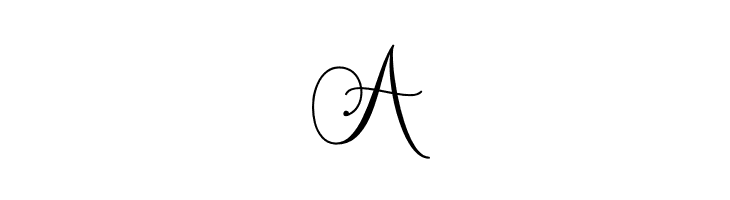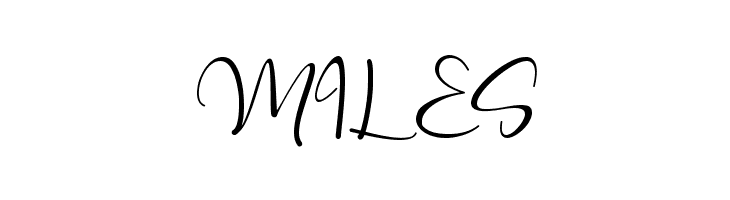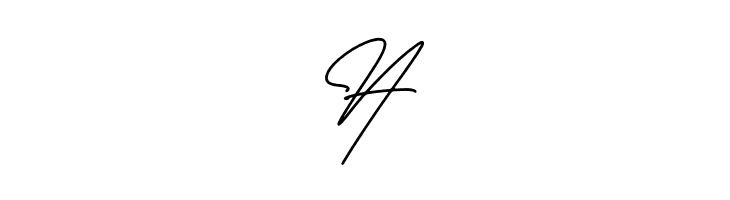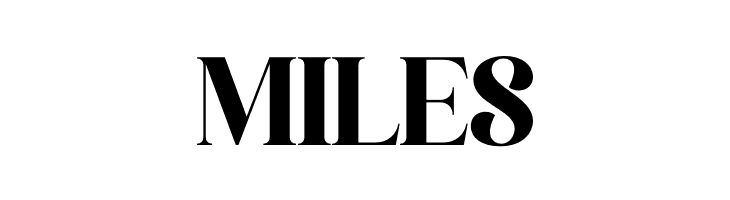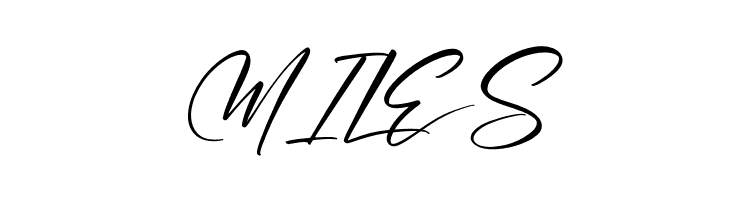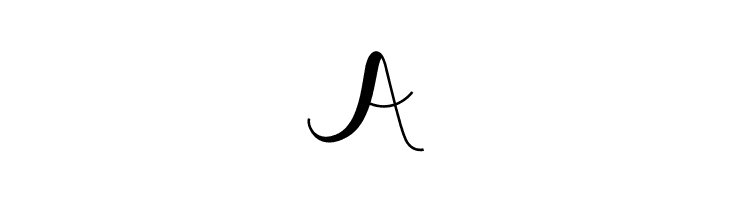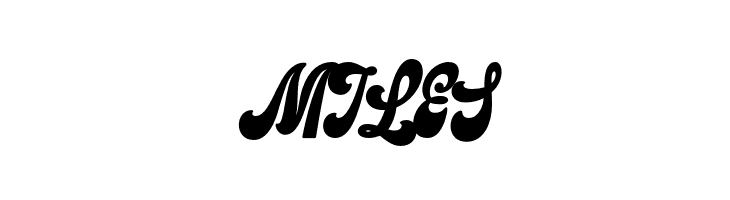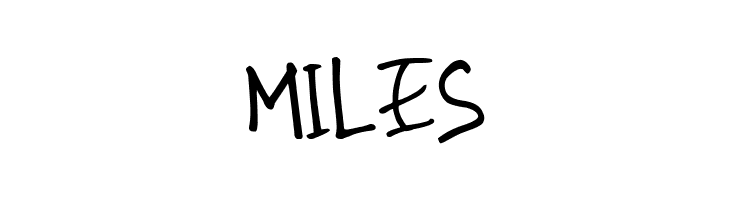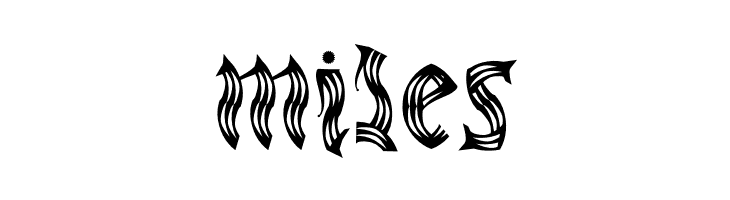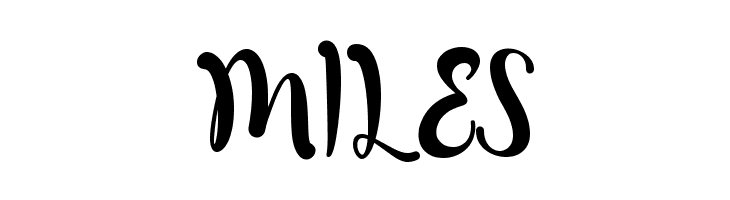
A sophisticated, cursive script font with elegant, flowing lines.
A dynamic and elegant script font with flowing, cursive letterforms.
A bold, expressive script font with flowing cursive letterforms.
A dynamic and elegant script font with flowing cursive strokes.
A playful handwritten font with a casual and friendly style.
A dynamic, expressive handwritten font with fluid strokes and a natural flow.
A bold, playful font with rounded, bubbly characters ideal for fun and creative projects.
A graceful script font with fluid, interconnected strokes and elegant curves.
An elegant and flowing script font with ornate uppercase letters and harmonious lowercase characters.
A dynamic and elegant script font with fluid, slanted letterforms.
A classic and elegant script font with flowing, cursive letterforms.
A lively and elegant script font with fluid, connected letterforms.
A bold, playful handwritten font with a casual and dynamic style.
A cursive script font with elegant, flowing characters.
A whimsical, hand-drawn font with a vintage, artistic flair.
An elegant and flowing script font with artistic loops and swirls.
A bold, expressive script font with flowing, cursive characters.
An ornate, medieval-style font with intricate, flowing strokes.
A playful, handwritten font with fluid, expressive strokes.
A playful, casual handwritten font with irregular strokes and a friendly appearance.
A dynamic and elegant script font with fluid, cursive strokes and decorative flourishes.
A bold serif font with high contrast and elegant design.
An elegant italic font with bold strokes and dynamic slant.
An elegant, flowing script font with graceful curves and sophisticated style.
An elegant, flowing script font with a handwritten style.
An ornate and decorative font with intricate swirls and flourishes, exuding elegance.
A bold, brush-style font with dynamic and expressive strokes.
A graceful monoline script font with fluid, cursive strokes.
A playful and artistic script font with a handwritten feel.
Bold, whimsical display font with swirling decorative elements.
An elegant, flowing script font with interconnected letters and delicate flourishes.
A bold, high-contrast serif font with a modern yet classic style.
An elegant italic serif font with a classic and sophisticated style.
An outlined font with geometric structure and consistent design.
An outlined, italicized font with a modern and elegant style.